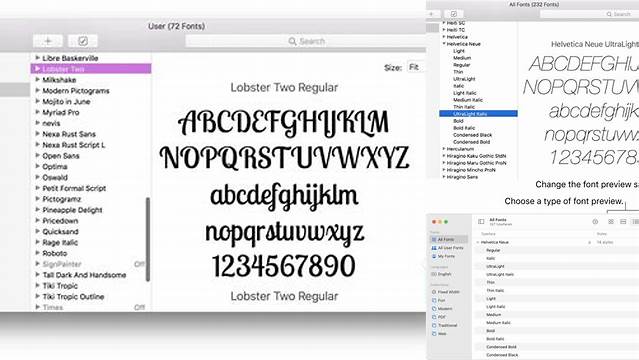
MacBook Fonts: Your Ultimate Guide
Hey guys! Ever wondered about the fonts on your MacBook? They're not just pretty letters; they're a key part of your digital identity, influencing how you read, create, and experience everything on your screen. From documents to designs, the right font can make all the difference. So, let's dive deep into the world of fonts on your MacBook, exploring everything from where they come from to how you can customize them to perfectly suit your needs. This guide will walk you through all the essentials, ensuring you have the knowledge to master the typographic landscape of your Mac.
H2: Understanding Default Fonts on Your MacBook
Alright, let's start with the basics: the default fonts that come pre-installed on your MacBook. These fonts are carefully selected by Apple to provide a consistent and aesthetically pleasing experience across all applications. You'll find a variety of fonts, each serving a different purpose, whether it's for body text, headlines, or interface elements. One of the most common default fonts is Helvetica Neue, a versatile sans-serif font that's used extensively throughout macOS. Then there's Times New Roman, a classic serif font often used for more formal documents and long-form reading. And of course, we can't forget about San Francisco, Apple's own custom-designed font, which is the system font for the entire macOS interface. San Francisco is engineered for optimal readability on digital screens, especially at smaller sizes. The advantage of sticking with these default fonts, initially, is that they are widely compatible and will render consistently on other devices, meaning the documents you create using them will look the same, regardless of where they are opened. Moreover, they provide a clean and professional look that's suitable for a broad range of purposes. However, it's important to remember that these defaults are just the beginning. There's a whole world of fonts out there, and you are able to expand your choices and really make your MacBook's font set your own. Think about all the different scenarios in which you use your MacBook. Are you a student writing essays? A designer creating graphics? A writer crafting a novel? The fonts you use will greatly impact how you and others will receive your content.
H3: Common Default Fonts and Their Uses
When you first open up your MacBook, you'll notice several default fonts that are already installed. Apple carefully selects these fonts to ensure they work well across all applications and provide a cohesive user experience. Helvetica Neue is a real workhorse, a clean sans-serif that's great for a variety of purposes. It’s often used in body text, headlines, and interface elements, because it's both readable and modern. Times New Roman, on the other hand, is a classic serif font that's perfect for more formal documents and extended reading. The serifs (the little strokes at the ends of the letters) can help guide your eyes across the page, making it easier to read large blocks of text. You may also see Courier New, a monospaced font where each character takes up the same amount of horizontal space, which is ideal for code or when you need to create precise layouts. Then there's San Francisco, Apple's own system font designed for optimal readability across all devices, and especially at small sizes. San Francisco's purpose is to provide a consistent, clear, and readable experience across your entire MacBook. Beyond these core fonts, you'll find other options like Arial, Calibri, and various other styles. These default fonts offer a solid foundation for your typographic needs, whether you're writing emails, creating presentations, or working on design projects. Recognizing the uses of each of these default fonts helps you make smart choices for any project on your MacBook.
H2: Accessing and Managing Fonts on Your MacBook
Okay, now you know the basics. But how do you actually get to these fonts on your MacBook? It's pretty straightforward, and Apple has made it user-friendly. You'll mostly be working with Font Book, the built-in font management application. You can find it in your Applications folder or by using Spotlight search. Once you open Font Book, you'll see a comprehensive list of all the fonts installed on your system. You can browse through them, preview their styles, and even see how they look at different sizes. Font Book lets you view your fonts, and it helps you organize and activate or deactivate them. To view a font, simply select it in Font Book and the app will display the full character set and various font styles available, such as regular, bold, italic, and condensed. You can also preview the font in a sample text box to see how it would look in a real-world context. Font Book also helps you manage your fonts. You can create font collections to organize fonts by type, project, or personal preference. This is a useful feature because it lets you quickly access the fonts you use most often without scrolling through a long list. The app also offers features for troubleshooting and resolving font conflicts, ensuring that your documents and applications display correctly. Managing your fonts is important. It helps you keep your MacBook organized, prevents any display issues, and ensures that your creative projects look exactly how you intend them to.
H3: Using Font Book to View and Activate Fonts
Font Book is your go-to tool for managing fonts on your MacBook. You can view installed fonts, organize them, and install new ones. To see a font, simply open Font Book. You'll see a list of all installed fonts. Select a font to view its details, including the various styles available (like regular, bold, italic), and preview the character set. You can also use the preview feature to see how the font looks in a text box. This way, you'll get a good sense of what the font will look like in your documents or designs. Now, how to activate and deactivate fonts? If you've got a lot of fonts installed, and you're not using them all the time, it's a good idea to deactivate those you don't need. This reduces clutter and can sometimes improve performance. Just right-click on a font and select "Disable". To re-enable a font, right-click it and choose "Enable".